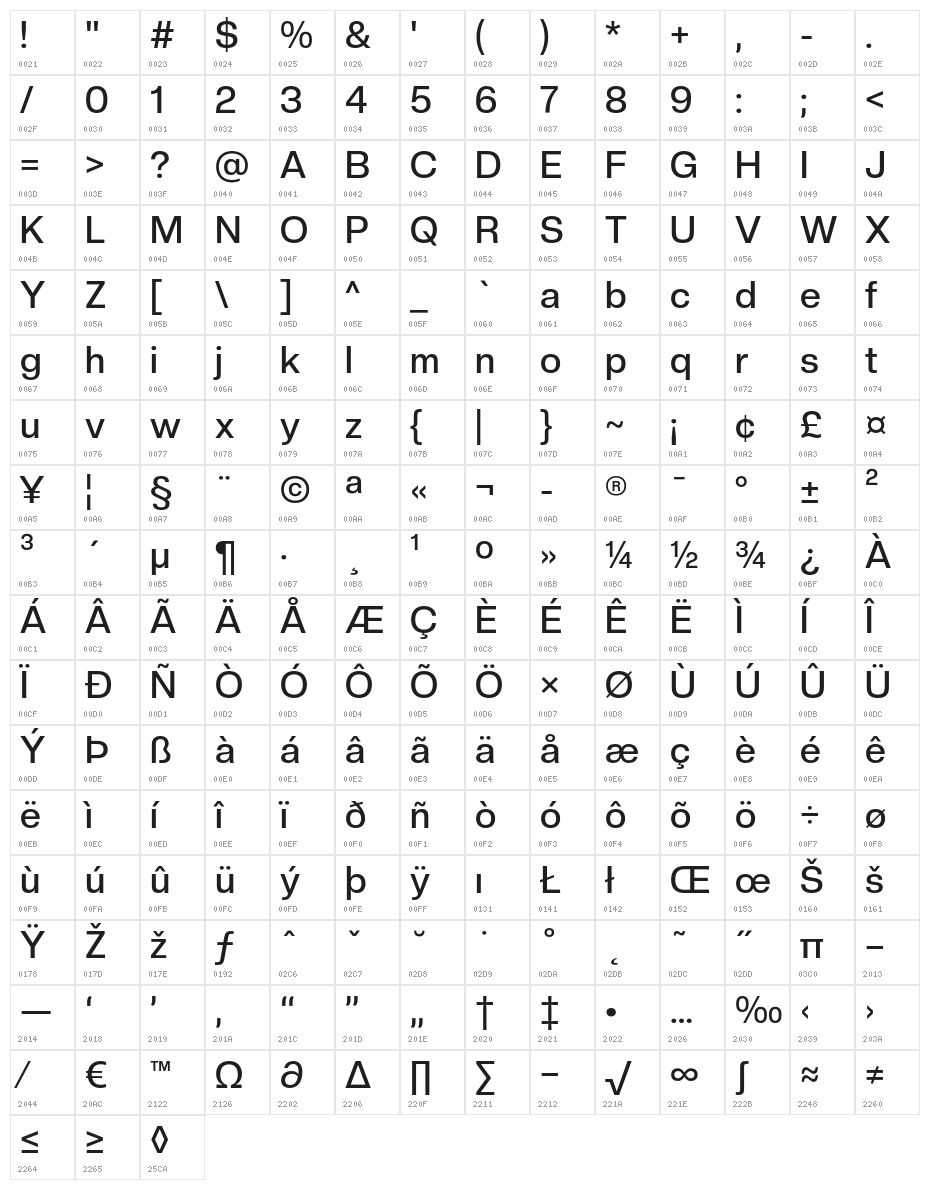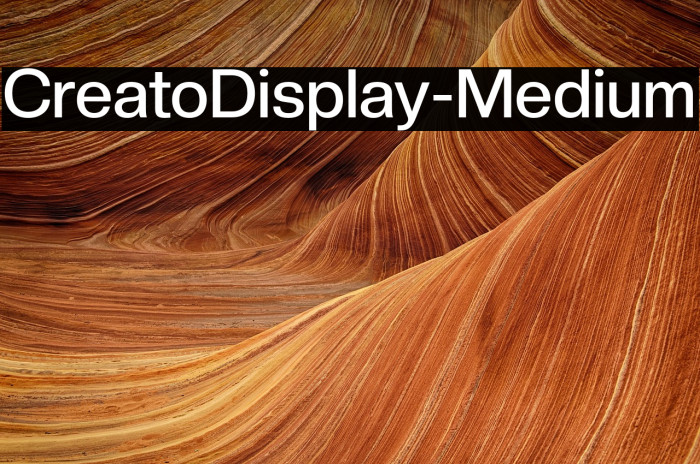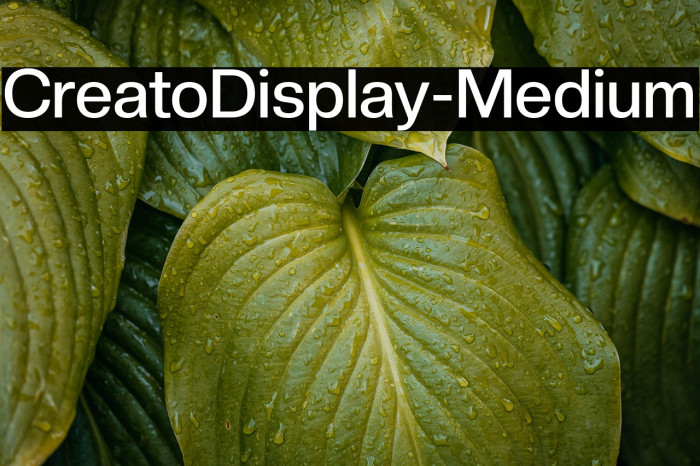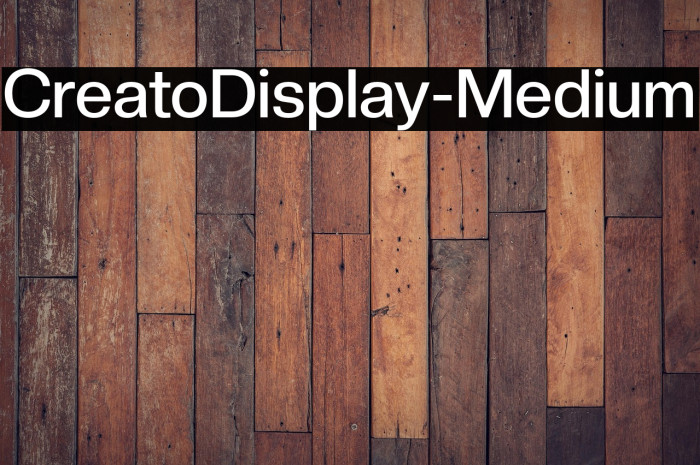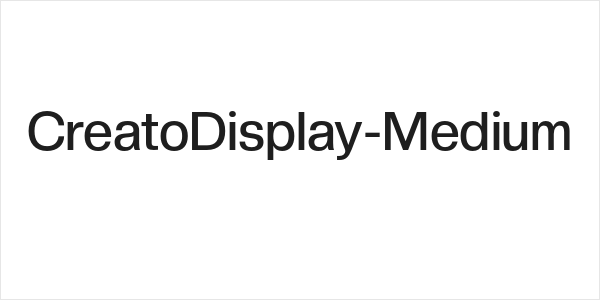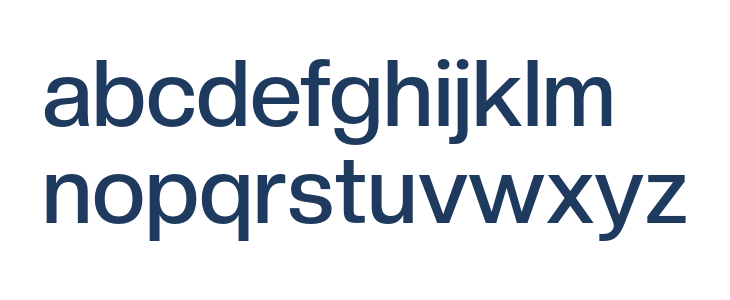
CreatoDisplay-Medium Font
CreatoDisplay-Medium Description
This font features a clean and modern sans-serif style with a medium weight, offering a balanced and versatile appearance. The characters are well-proportioned with a consistent stroke width, providing a harmonious and easy-to-read text. The uppercase and lowercase letters maintain a uniform height, contributing to a cohesive look. The numerals are clear and distinct, ensuring legibility in various contexts. Special characters are designed with simplicity, enhancing the overall minimalistic aesthetic. This font is suitable for a wide range of applications, from digital interfaces to print media.